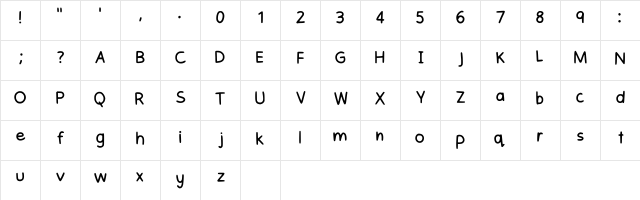
Adabelle Handwriting Regular
Design Context for Adabelle Handwriting
Adabelle Handwriting flows with the natural rhythm of handwritten lettering, making it ideal for designs that call for warmth and personal expression.
Font Pairing: Combine Adabelle Handwriting with a simple geometric sans for maximum contrast - the tension between flowing curves and clean structure is a classic typographic pairing.
Pro Tip: Use Adabelle Handwriting for short runs of text - names, titles, or taglines. Extended body copy in script faces tires the eye quickly.